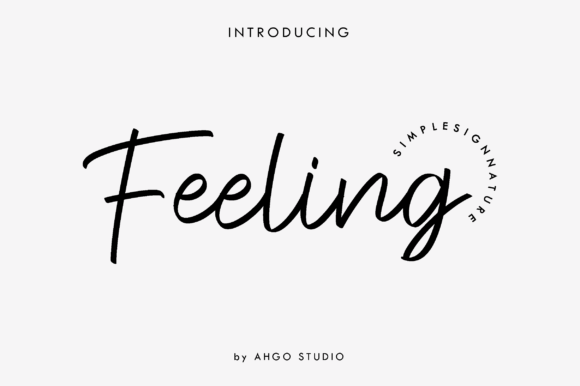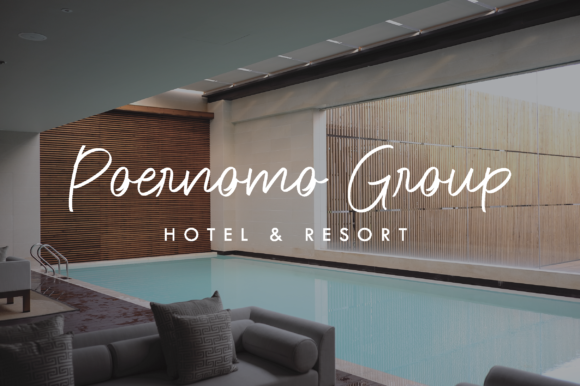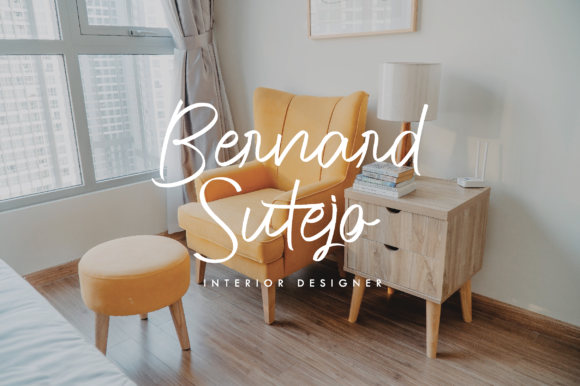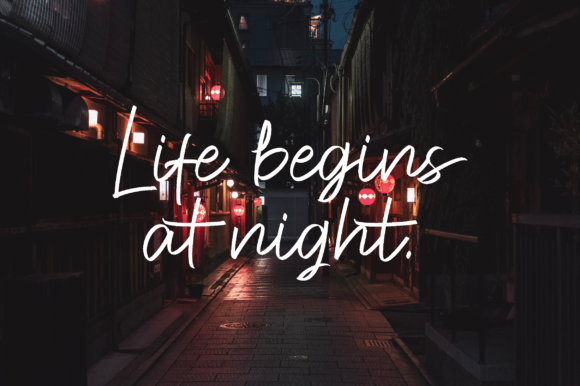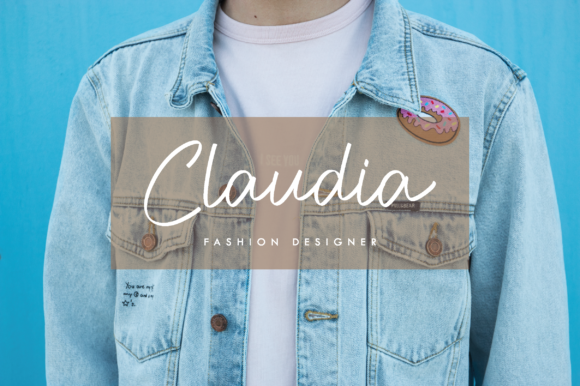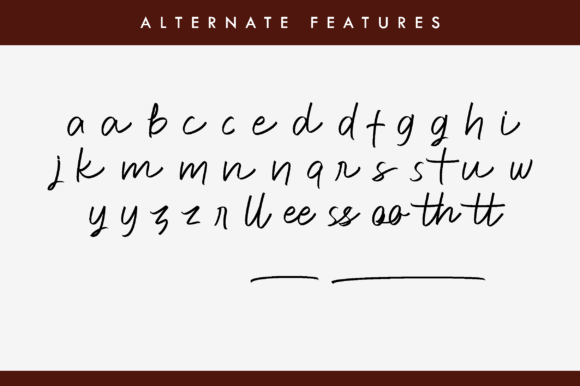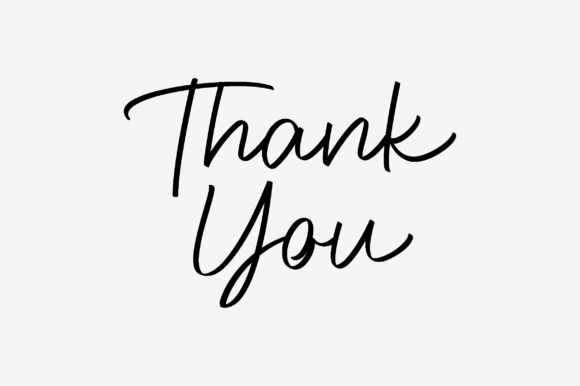
Feeling Signature Font
About Feeling Signature Font
Feeling Signature is a handwritten font that has a modern and simple style. It is perfect for business cards, logos, flyers, magazine covers and much more.